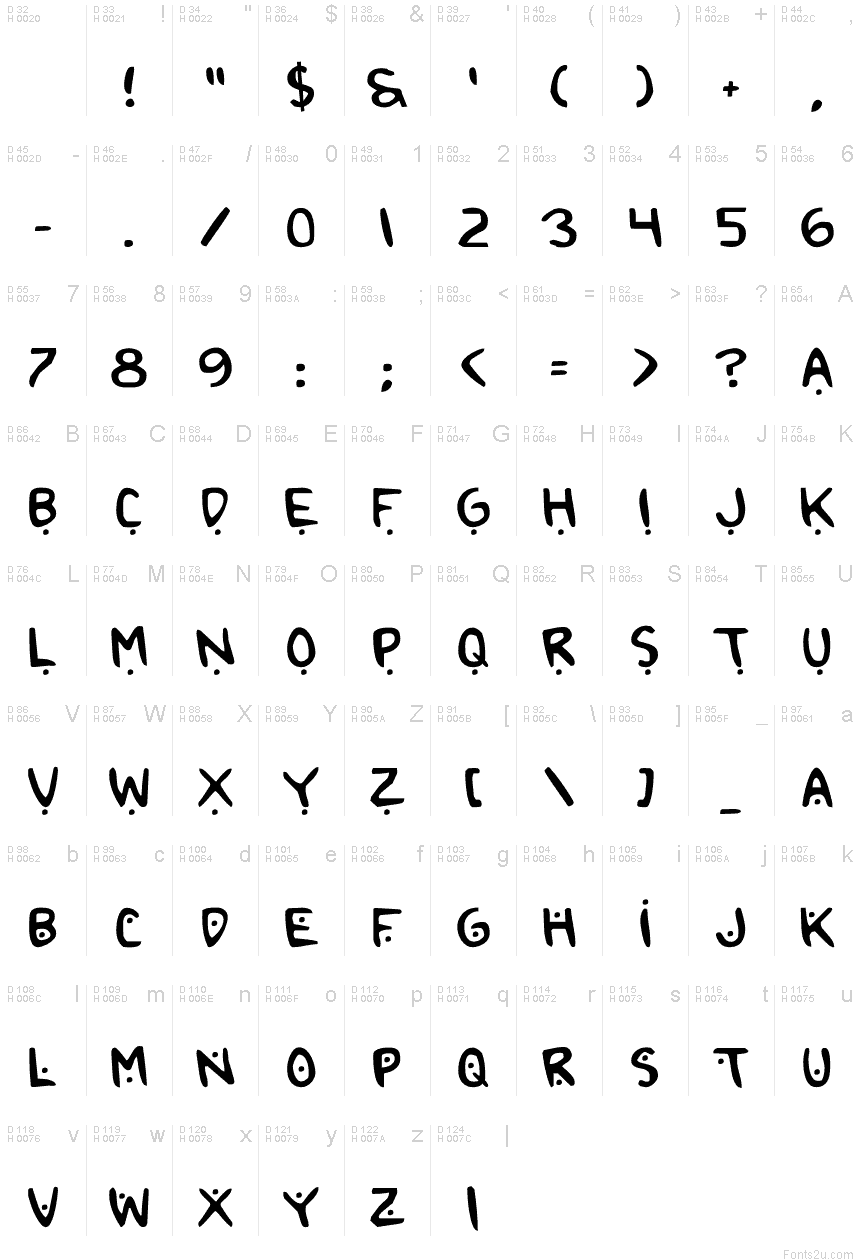
2Toon2
2Toon2 font by Iconian Fonts is a free comic display typeface with a loose, hand-drawn bounce that feels straight out of a Saturday morning cartoon. Its chunky, inky strokes wobble just enough to feel playful, while the generous shapes keep every word bold and readable, even at a glance. The letters look like they were sketched with a thick marker, giving titles and logos a friendly, animated energy.
Using 2Toon2, you can bring character to kids’ book covers, comic panels, cartoon logos, party invitations, game interfaces, YouTube thumbnails, and sticker designs. This free font shines at larger sizes where its quirky outlines can really show, and it pairs easily with a clean geometric sans for body text to keep layouts fun but legible.